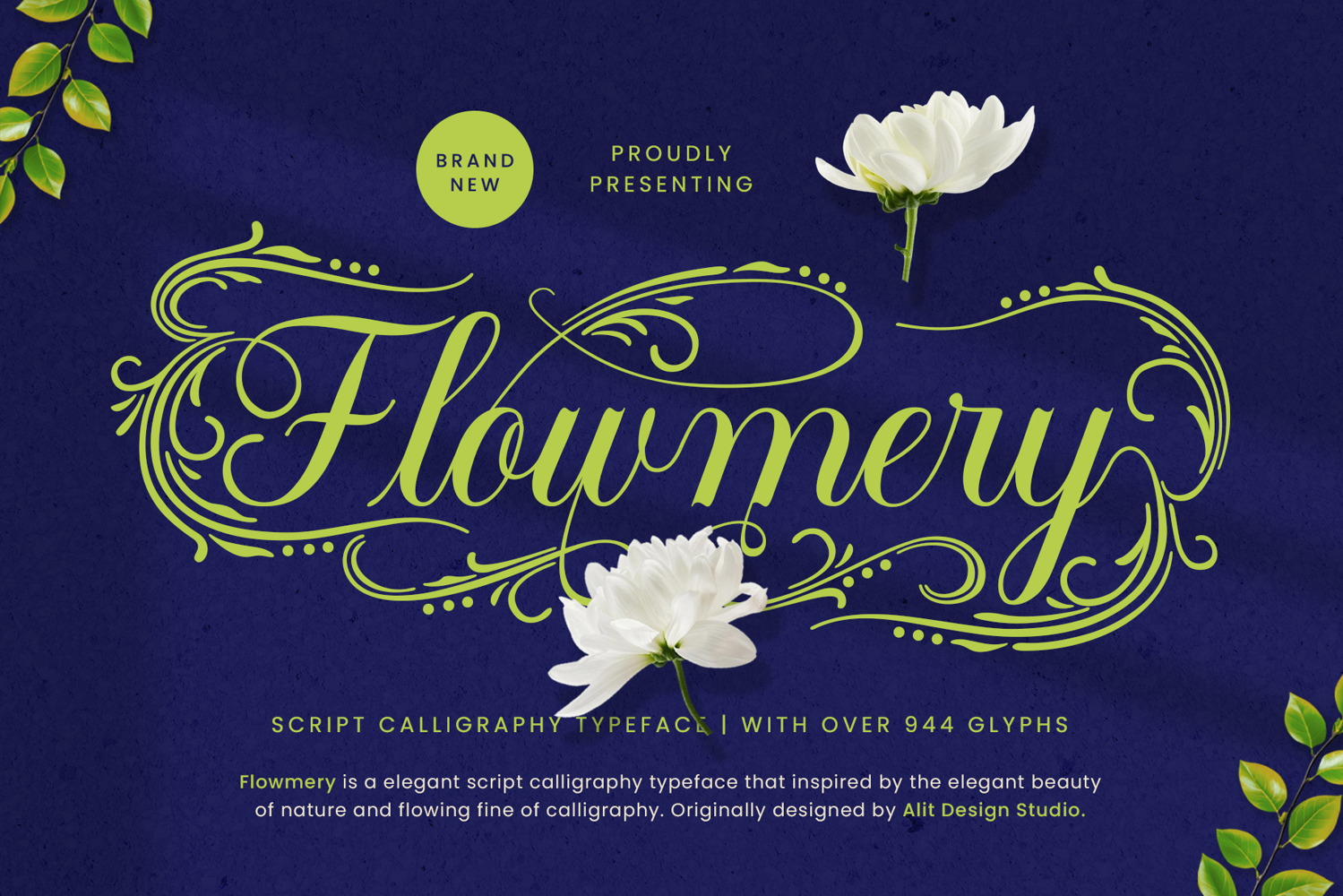
Flowmery - A Naturally Elegant Calligraphy Script
Proudly presenting Flowmery, an elegant and flowing script typeface that finds its inspiration in the delicate beauty of nature and the timeless art of fine calligraphy. Designed with meticulous attention to detail, Flowmery captures the essence of organic forms and graceful movements, making it the perfect choice for projects that require a touch of sophistication and natural charm.
Flowmery is more than just a font; it's a complete typographic toolkit. With an extensive collection of over 944 glyphs, it offers a vast playground for creativity. Each letter is designed to connect seamlessly, creating a fluid and harmonious rhythm in your text. The numerous alternate characters, swashes, and ligatures allow you to craft truly unique and custom-looking designs that stand out.
Whether you're designing an enchanting wedding invitation, creating a memorable brand logo, or styling elegant product packaging, Flowmery provides the versatility and beauty to bring your vision to life.
• Over 944+ Glyphs: A comprehensive character set including a massive selection of alternates for ultimate customization.
• Multiple Stylistic Sets: A wide range of stylistic alternates for both uppercase and lowercase letters (including Stylistic Sets 1-8 for lowercase) to create varied and dynamic text.
• Elegant Swashes & Flourishes: Add a final decorative touch to your typography with beautifully crafted swashes.
• Ligatures: A set of standard and discretionary ligatures to ensure a natural, handwritten feel.
• Multilingual Support: Includes characters to support a wide range of languages.
Perfect For:
• Wedding Invitations & Stationery
• Branding & Luxury Logos
• Product Packaging (especially for beauty, wellness, and botanical products)
• Website Headers & Mastheads
• Social Media Graphics & Quotes
• Greeting Cards & Editorial Design